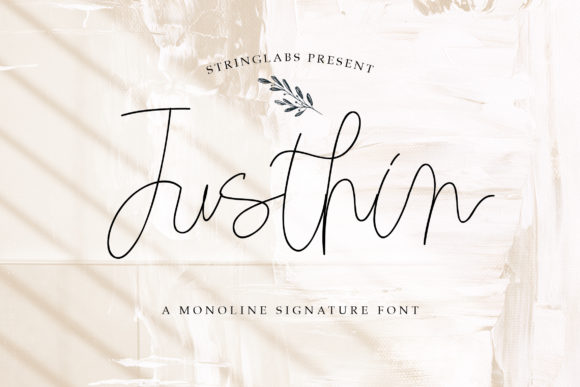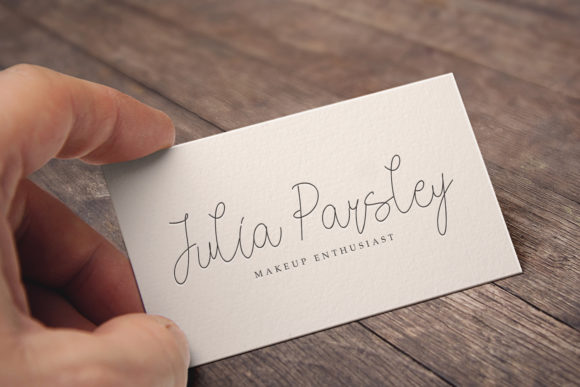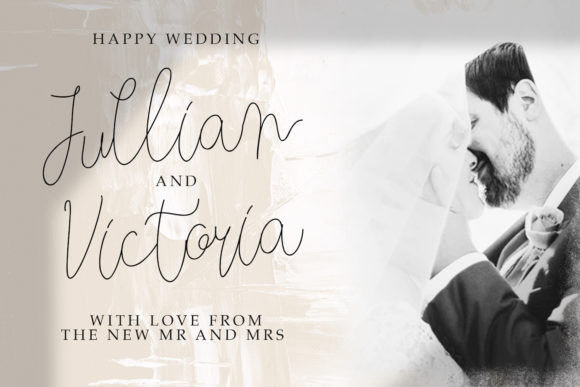
Justhin Font
About Justhin Font
Justhin is a magical script font carefully created with a touch of elegance. This is a beautiful combination of timeless elegance and authentic calligraphy. It features an incredibly classic style, while still keeping a friendly feel. Justhin is the perfect font for making original and outstanding designs.